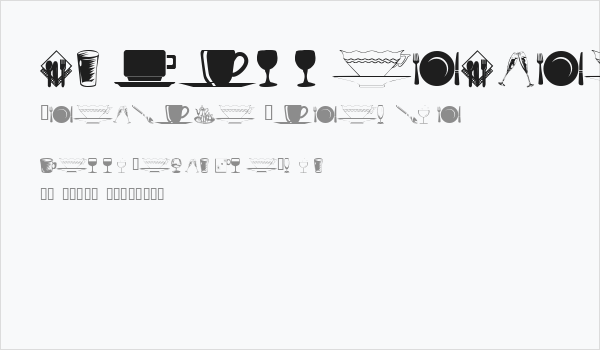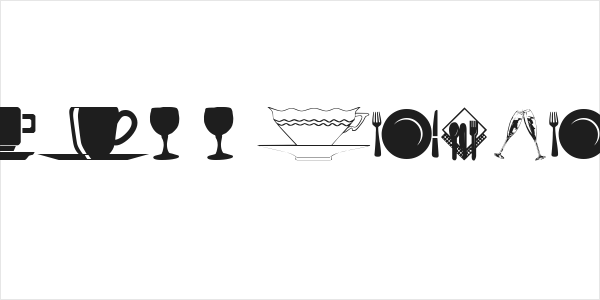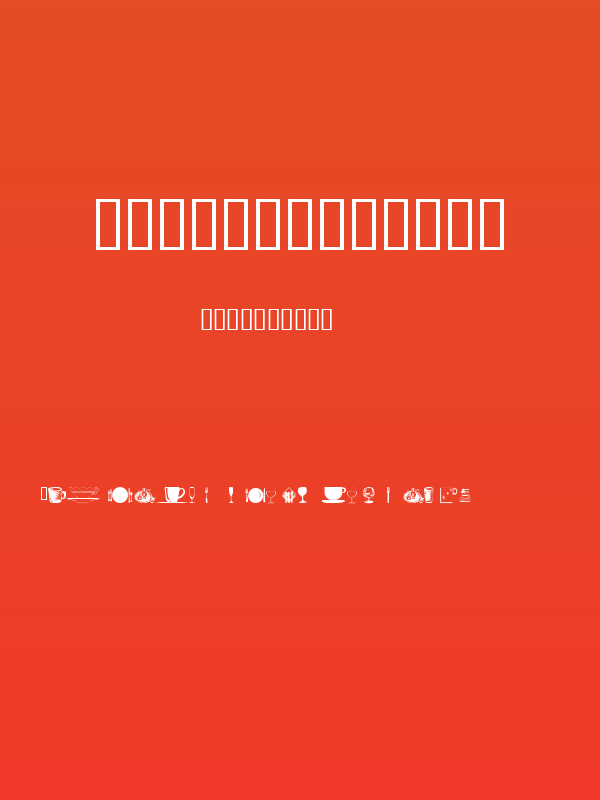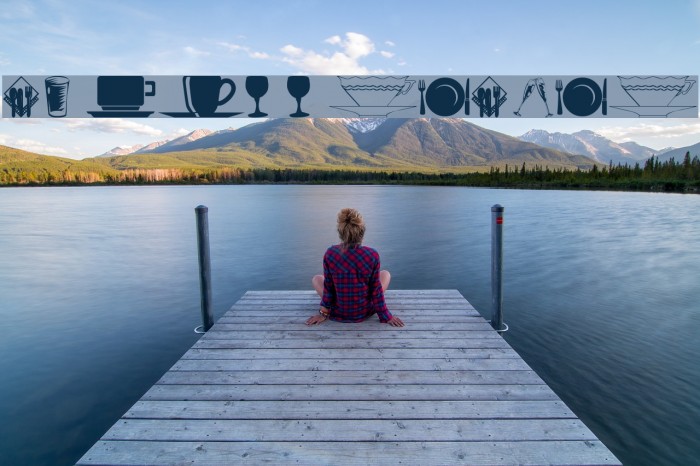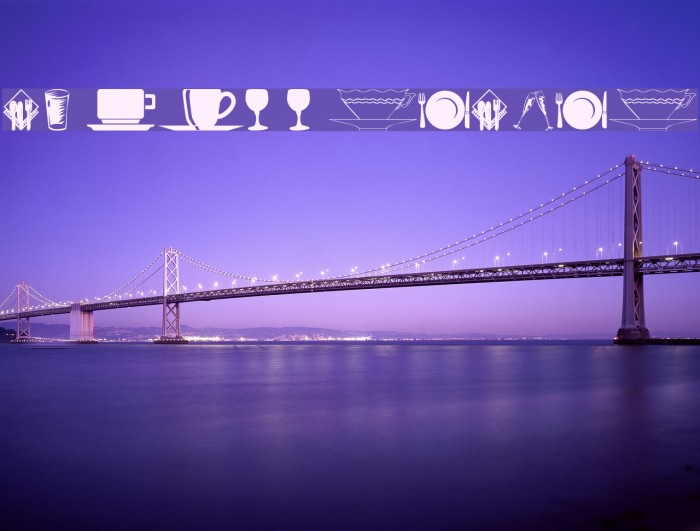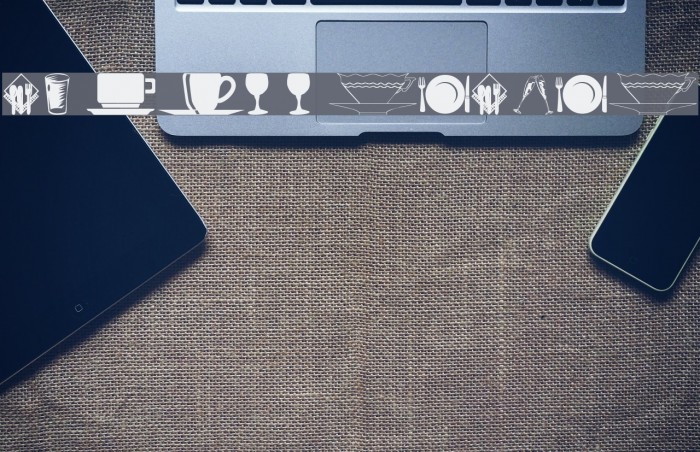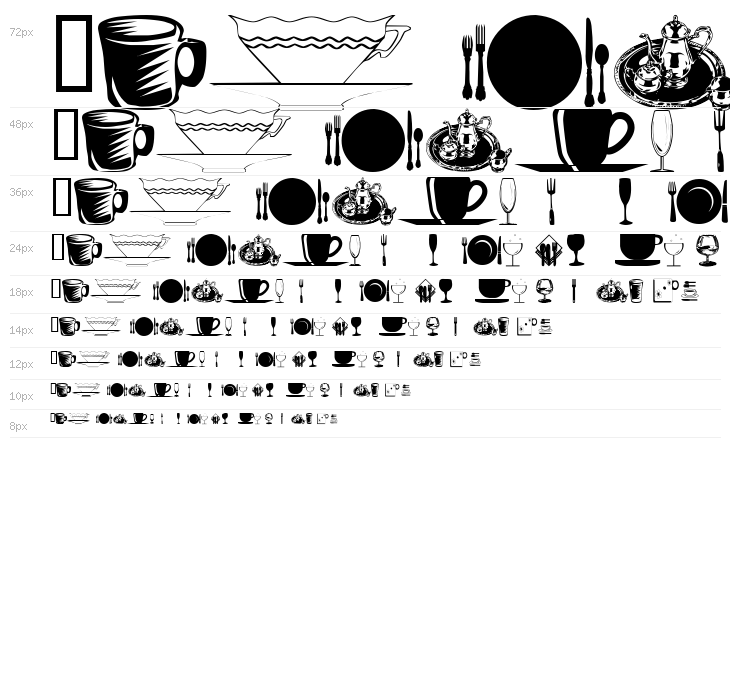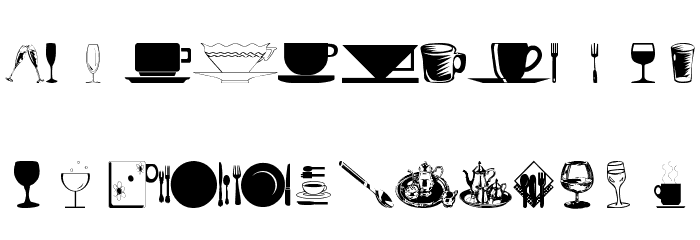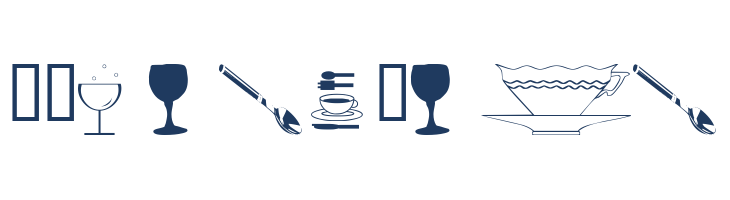
wmdinnerware1 Font
wmdinnerware1 Description
A pictogram-style dingbat font featuring detailed black and white illustrations of dinnerware, glassware, cutlery, and food-related items. Each character is represented by a unique icon, such as wine glasses, plates, cups, utensils, and serving dishes, all rendered in a clean, silhouette style.
| Overall Style | Decorative, Thematic |
| Use Case | Icons, Decorative elements, Themed graphics |
| Proposed Projects | Menus, restaurant branding, event invitations, food blogs, culinary infographics, decorative headings. |